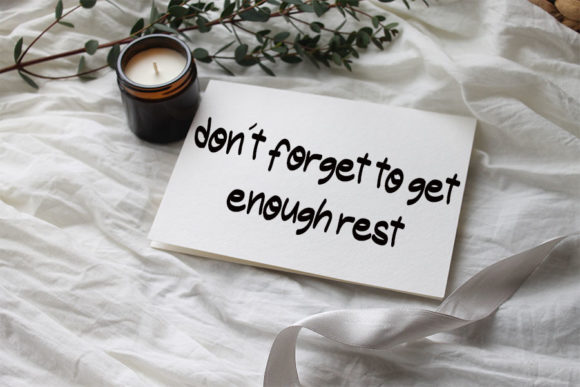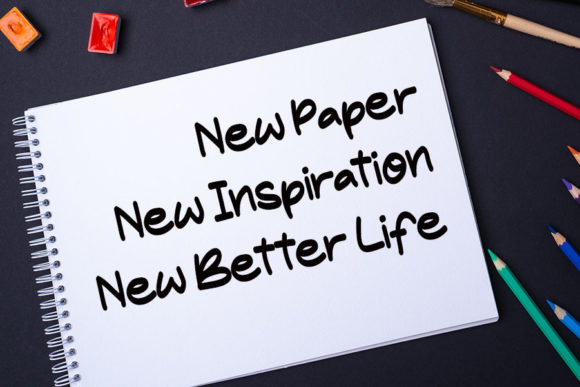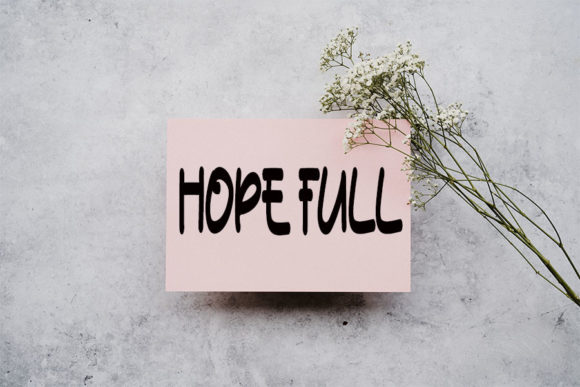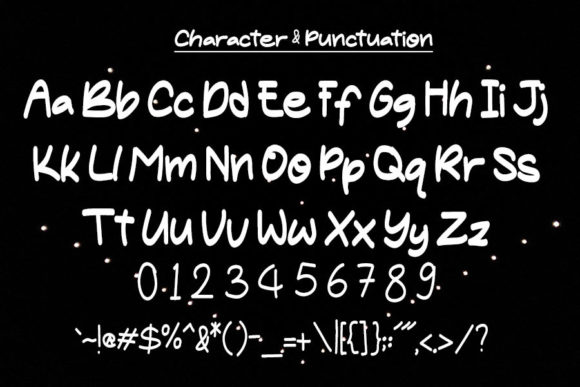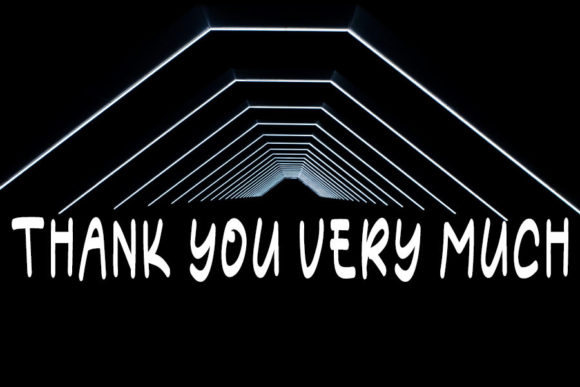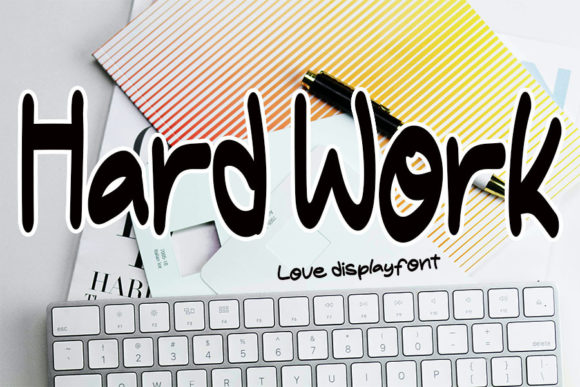
Introducing Hard Work Font: The Ultimate Handwritten Companion for Designers
In the world of design, the right font can make all the difference. It’s the perfect complement to your visuals, conveying your message with clarity and style. If you’re on the hunt for a versatile and clean handwritten font, look no further than Hard Work Font. This simple yet adaptable font is about to become your new favorite go-to, suitable for a wide variety of designs and occasions.
The Beauty of Hard Work Font
Hard Work Font boasts a fresh and modern aesthetic, characterized by its clean lines and effortless flow. Its simplicity makes it an excellent choice for designers and crafters seeking a font that won’t overpower their work. Whether you’re creating a logo, crafting a social media post, or designing a brand identity, Hard Work Font is the perfect companion.
Key Features of Hard Work Font
- Simple and Clean Design: Hard Work Font features a minimalist design that exudes elegance and sophistication.
- Adaptable: This font is incredibly versatile, making it suitable for a wide range of designs, from formal to informal.
- Handwritten Style: The font’s handwritten style adds a touch of personality and warmth to your designs.
- Easy to Read: The clean lines and clear lettering ensure that your message is conveyed with clarity.
Use Cases for Hard Work Font
Hard Work Font is an incredibly versatile font that can be used in various design projects, including:
- Branding and Identity: Create a lasting impression with a custom logo or brand identity that incorporates Hard Work Font.
- Social Media Graphics: Elevate your social media presence with eye-catching graphics and posts featuring Hard Work Font.
- Packaging Design: Add a personal touch to your product packaging with this charming font.
- Stationery and Invitations: Create beautiful stationery, invitations, and greeting cards with Hard Work Font.
Why Choose Hard Work Font?
With so many fonts available, why choose Hard Work Font? Here are just a few reasons:
- Unique yet Versatile: Hard Work Font offers a distinctive handwritten style that’s adaptable to various design contexts.
- Time-Saving: With Hard Work Font, you can create stunning designs in no time, thanks to its clean and easy-to-read design.
- Professional Results: Achieve professional-looking results without extensive design experience.
Tips for Using Hard Work Font Effectively
To get the most out of Hard Work Font, consider the following tips:
- Pair with Other Fonts: Experiment with font combinations to create visually appealing contrasts.
- Adjust Font Sizes: Play with font sizes to add hierarchy and emphasis to your designs.
- Experiment with Colors: Try out different colors to match your brand’s aesthetic or add visual interest.
| Font Name | Hard Work Font |
| Author | muhawk47 |
Hard Work Font is a simple, clean, and adaptable handwritten font that’s poised to become your new favorite design companion. Its versatility, elegance, and ease of use make it an excellent choice for designers and crafters seeking a reliable font for various projects. Try Hard Work Font today and discover the perfect complement to your designs!